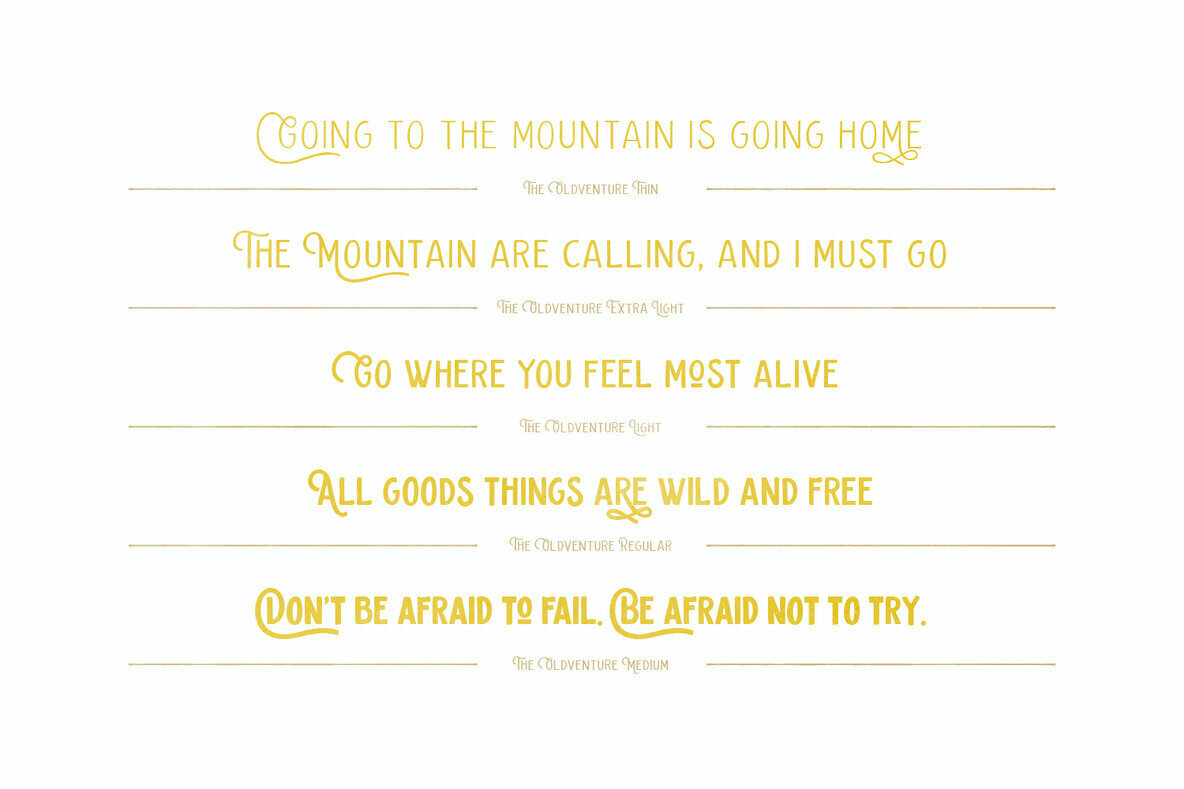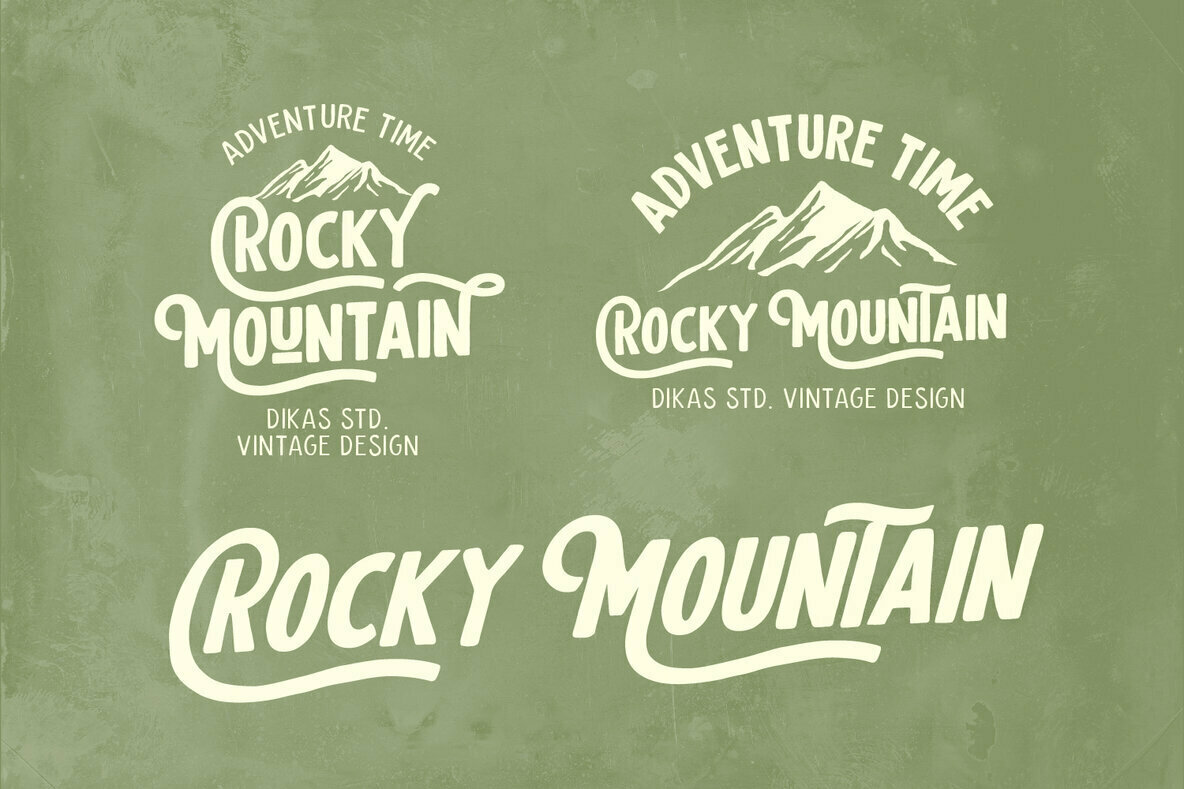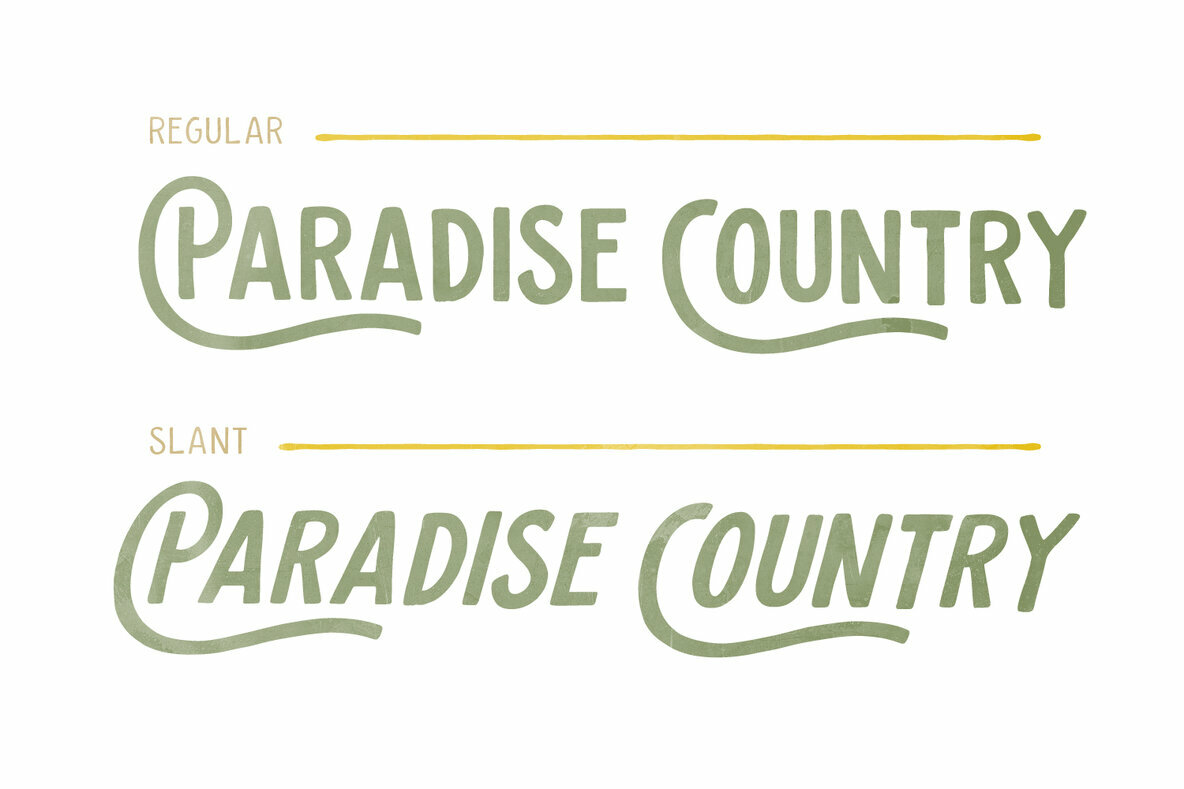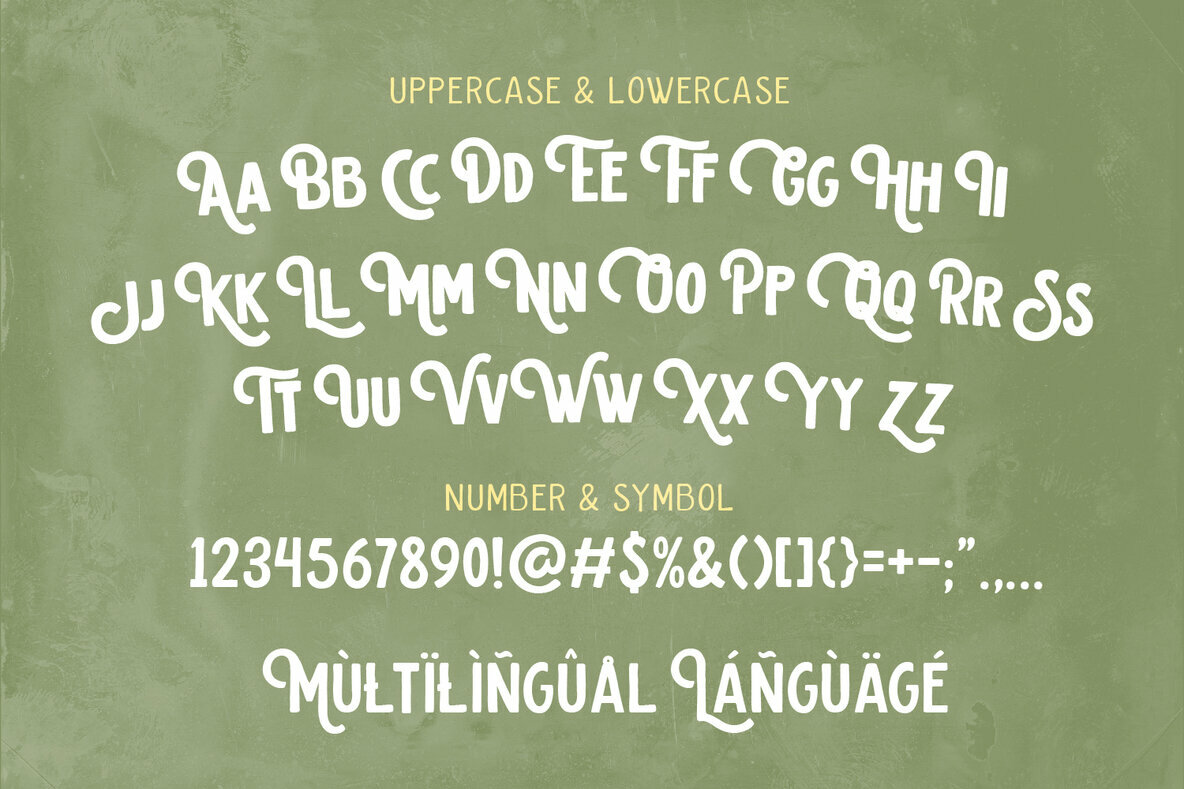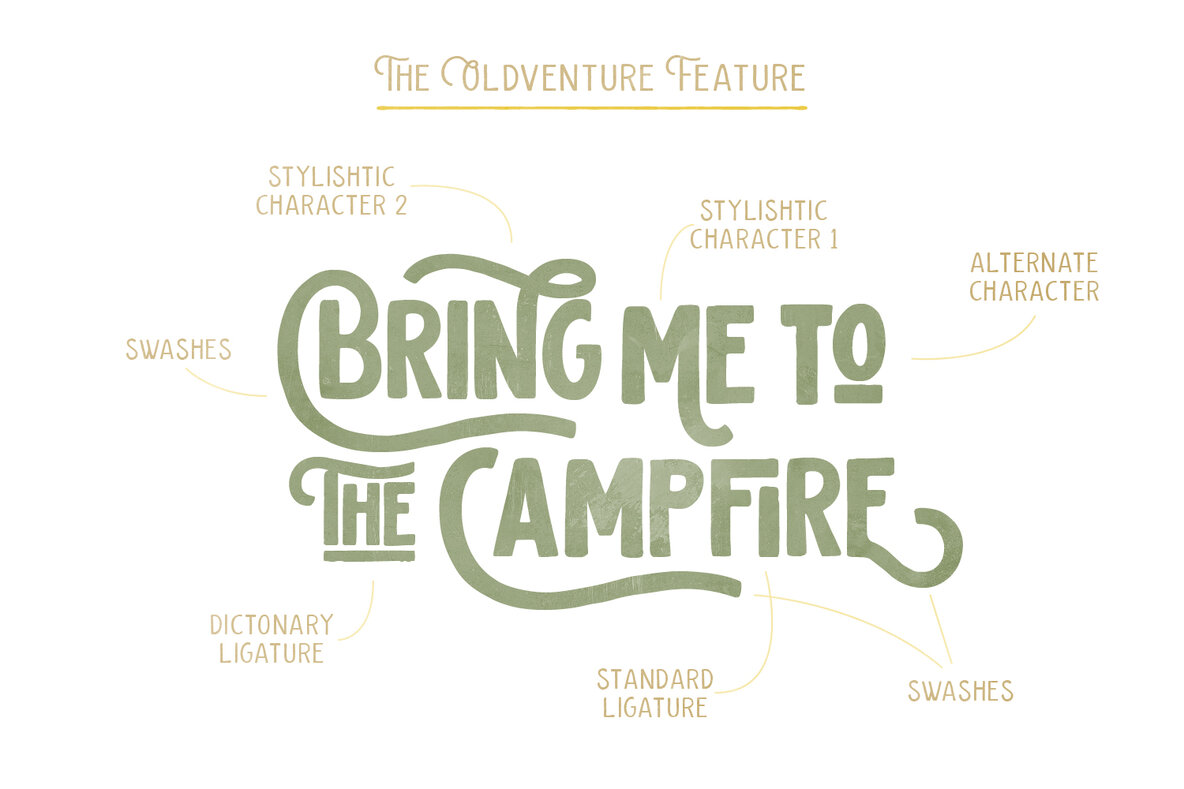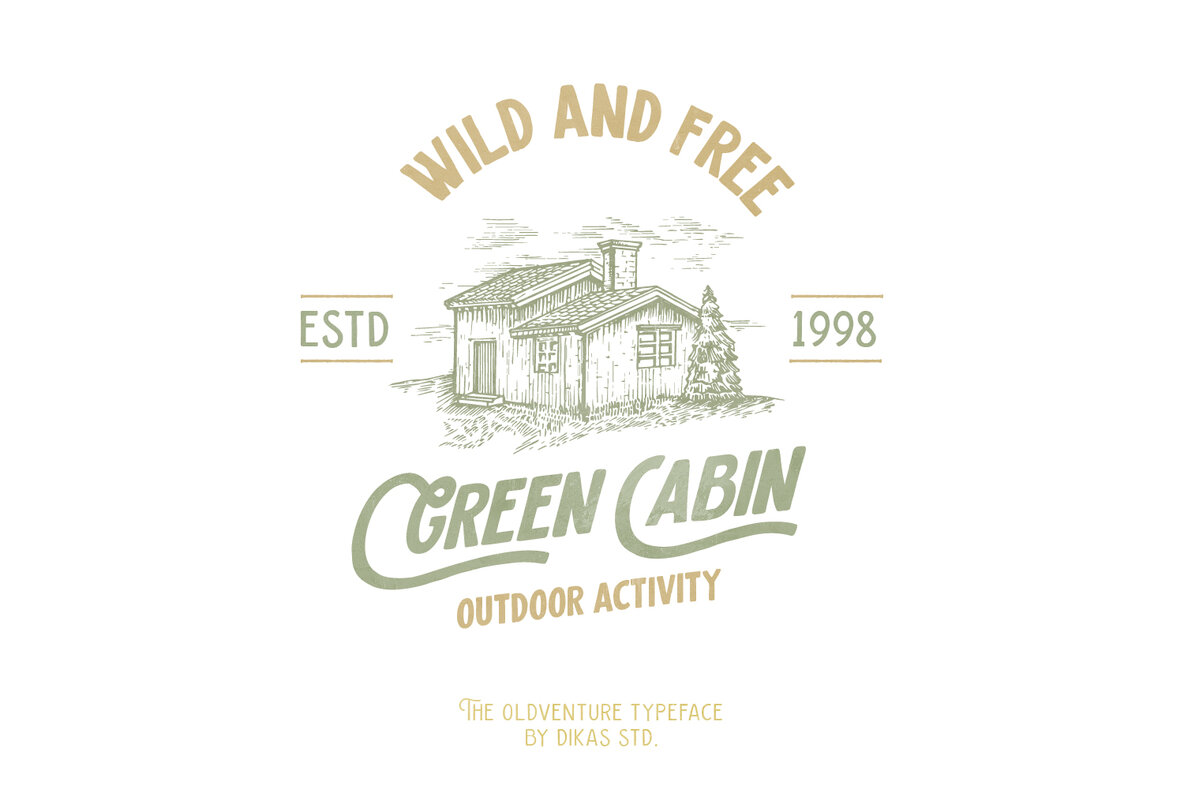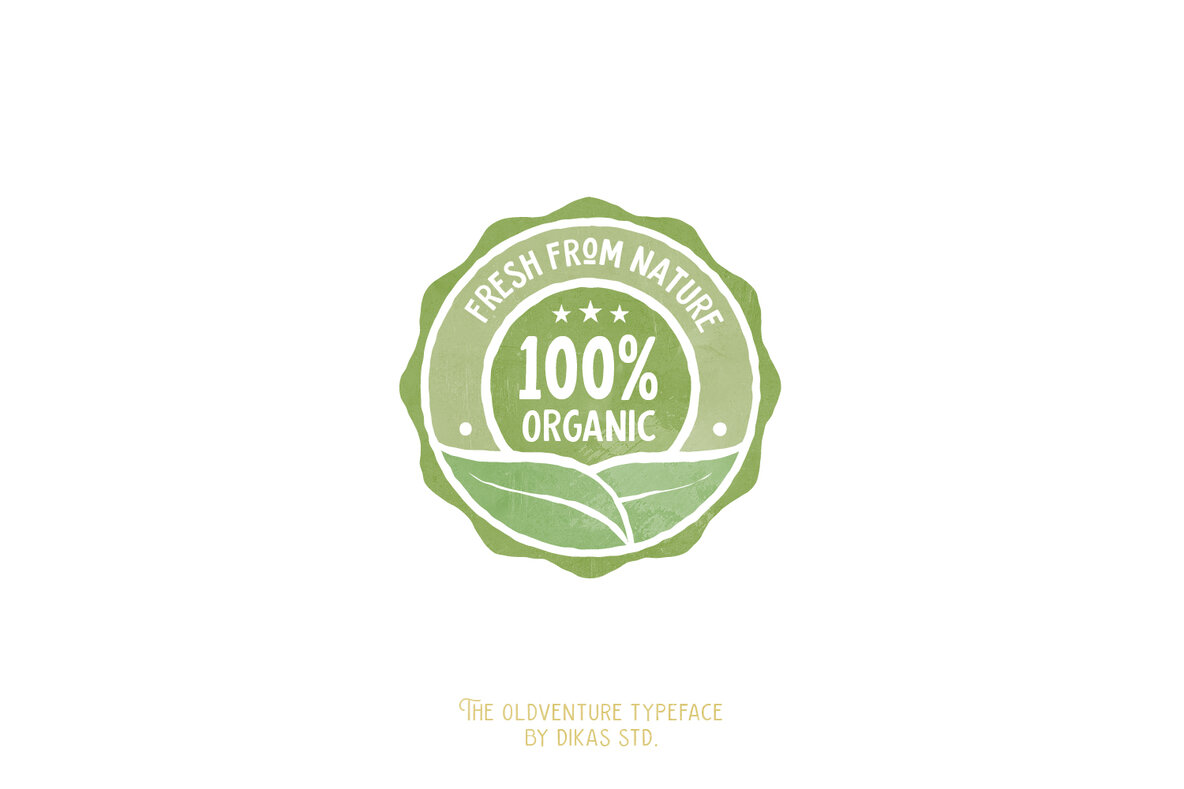
The Oldventure Font
The Oldventure font, crafted by Andika Setiawan, is designed for creatives seeking a vintage touch. This hand-drawn typeface offers a unique character, perfect for adventure-themed projects. Leverage The Oldventure's robust character set for projects that call for an adventurous spirit and outdoor themes.The Oldventure: Hand-Drawn Vintage Font Collection